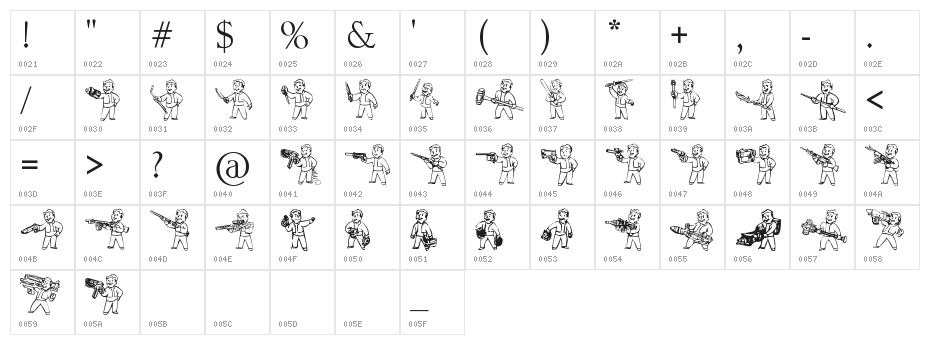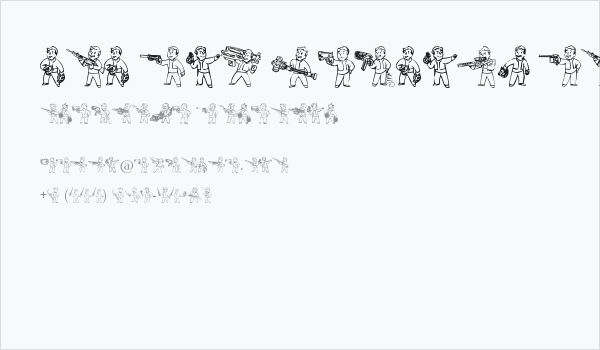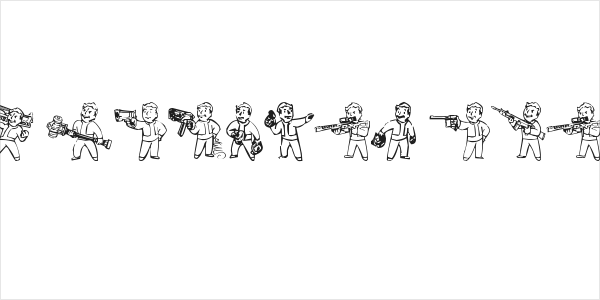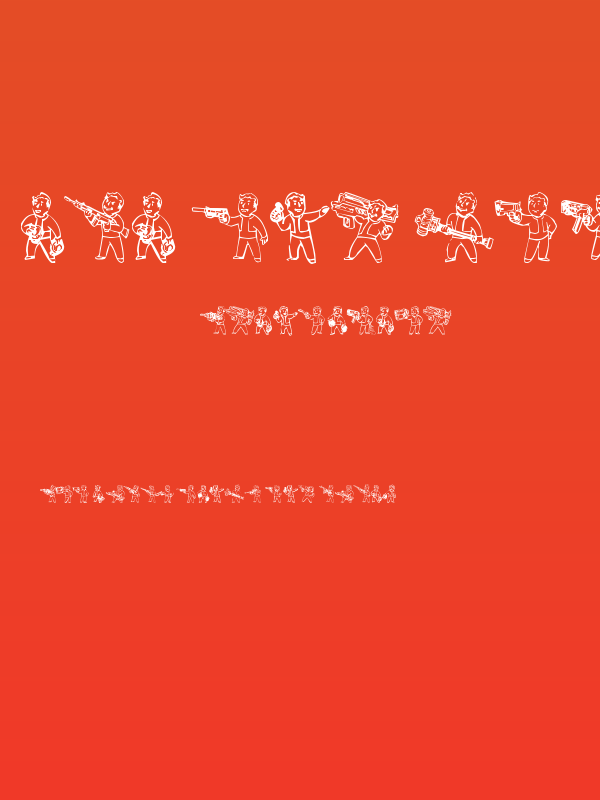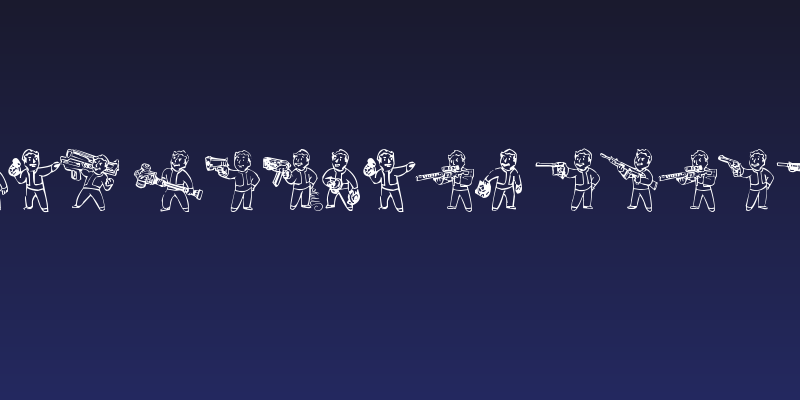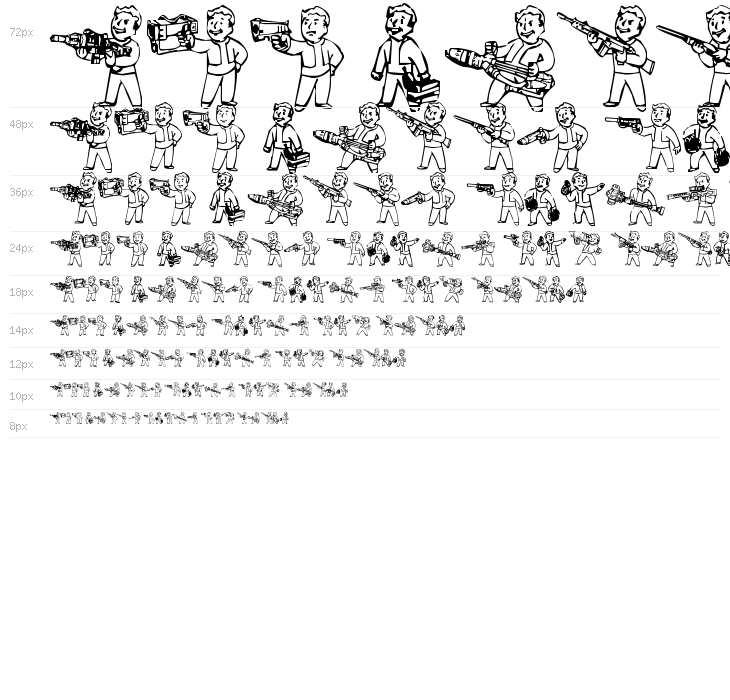
Pip Boy Weapons Dingbats Font
Pip Boy Weapons Dingbats Description
This is a unique dingbat font featuring a series of illustrated characters, each holding different types of weapons. The characters are styled in a cartoonish manner, reminiscent of retro video game aesthetics. Each glyph represents a different character pose or weapon, providing a playful and thematic visual language. The font is not designed for traditional text but rather for decorative purposes, adding a distinctive flair to projects that require a touch of humor or a nod to gaming culture. The characters are detailed and expressive, capturing a sense of action and personality.
| Use Case | Logos, Posters, Decorative elements |
| Proposed Projects | This font is perfect for video game-themed designs, posters, or any creative project that seeks to incorporate a playful, retro gaming aesthetic. It can also be used in comic books or graphic novels to add visual interest. |